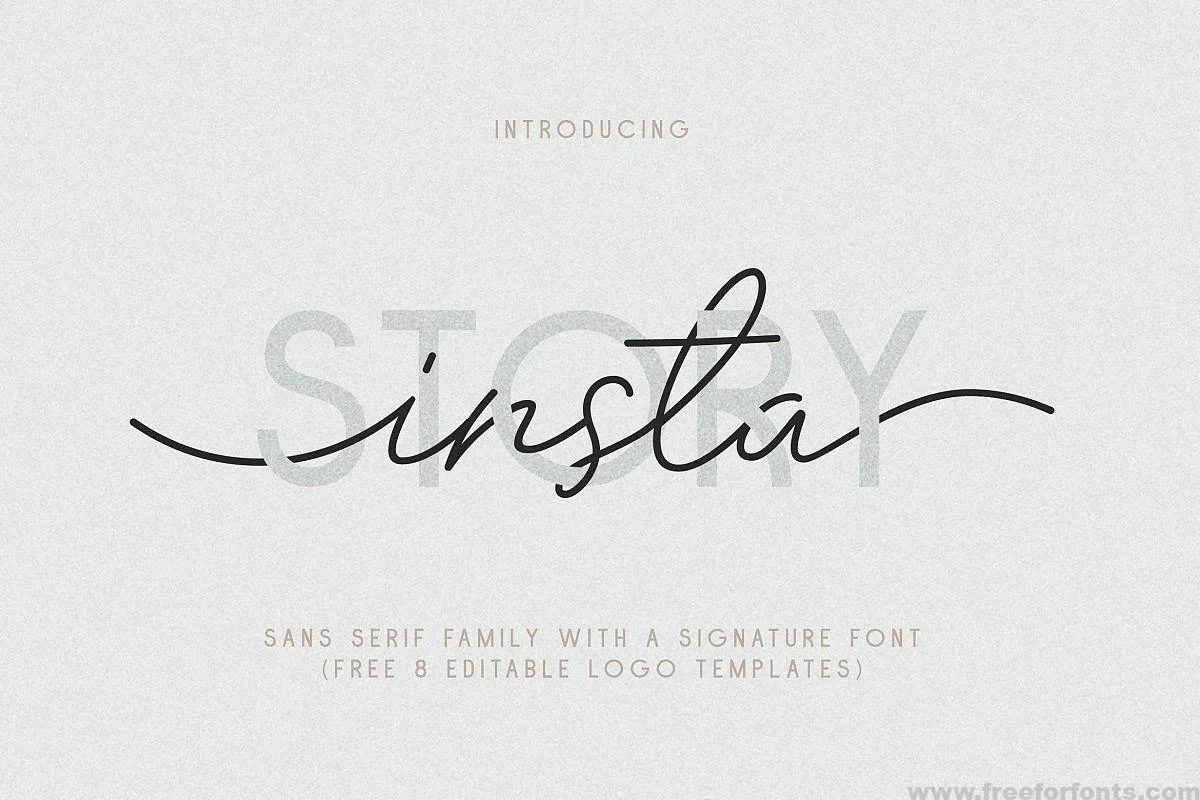
Insta Story Duo Font
Insta Story Duo Font is perfect for social media graphics, Instagram story templates, influencer branding, digital content creation, lifestyle blog designs, social media marketing campaigns, online coaching materials, fashion blogger content, beauty influencer graphics, personal brand storytelling, mobile-first designs, and any design project requiring modern social media-optimized typography.
What makes Insta Story Duo Font exciting is its dual-style versatility specifically designed for dynamic social media storytelling. The font's complementary pairing provides creative flexibility for layering headlines and supporting text, making it ideal for content creators and brands maximizing engagement on visual platforms. Its contemporary character resonates with digital-native audiences while maintaining excellent mobile readability, helping designers create thumb-stopping content that captures attention in fast-scrolling feeds.
The Insta Story Duo Font family typically includes two complementary font styles, uppercase and lowercase characters, numerals, punctuation marks, and social media-optimized design features.